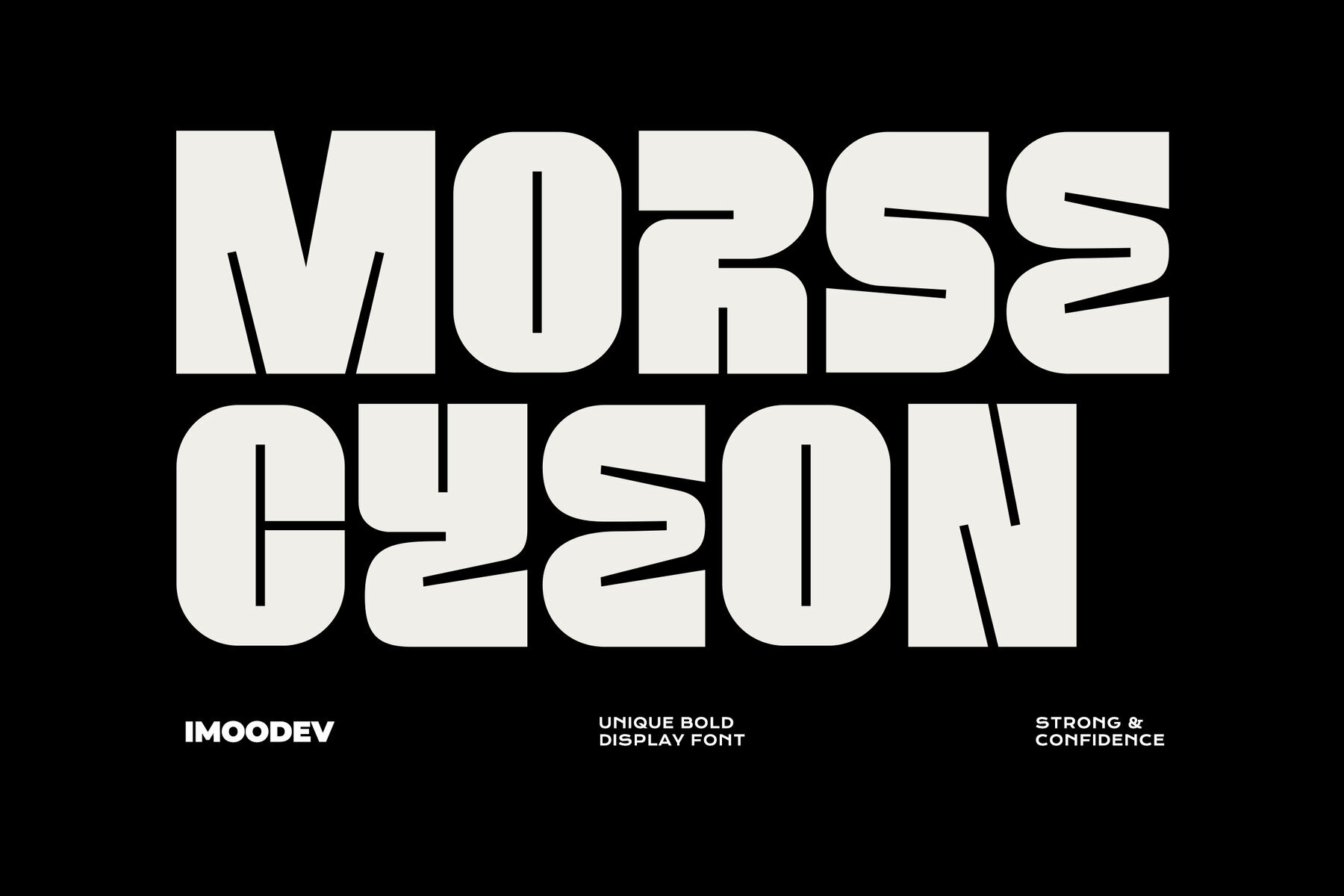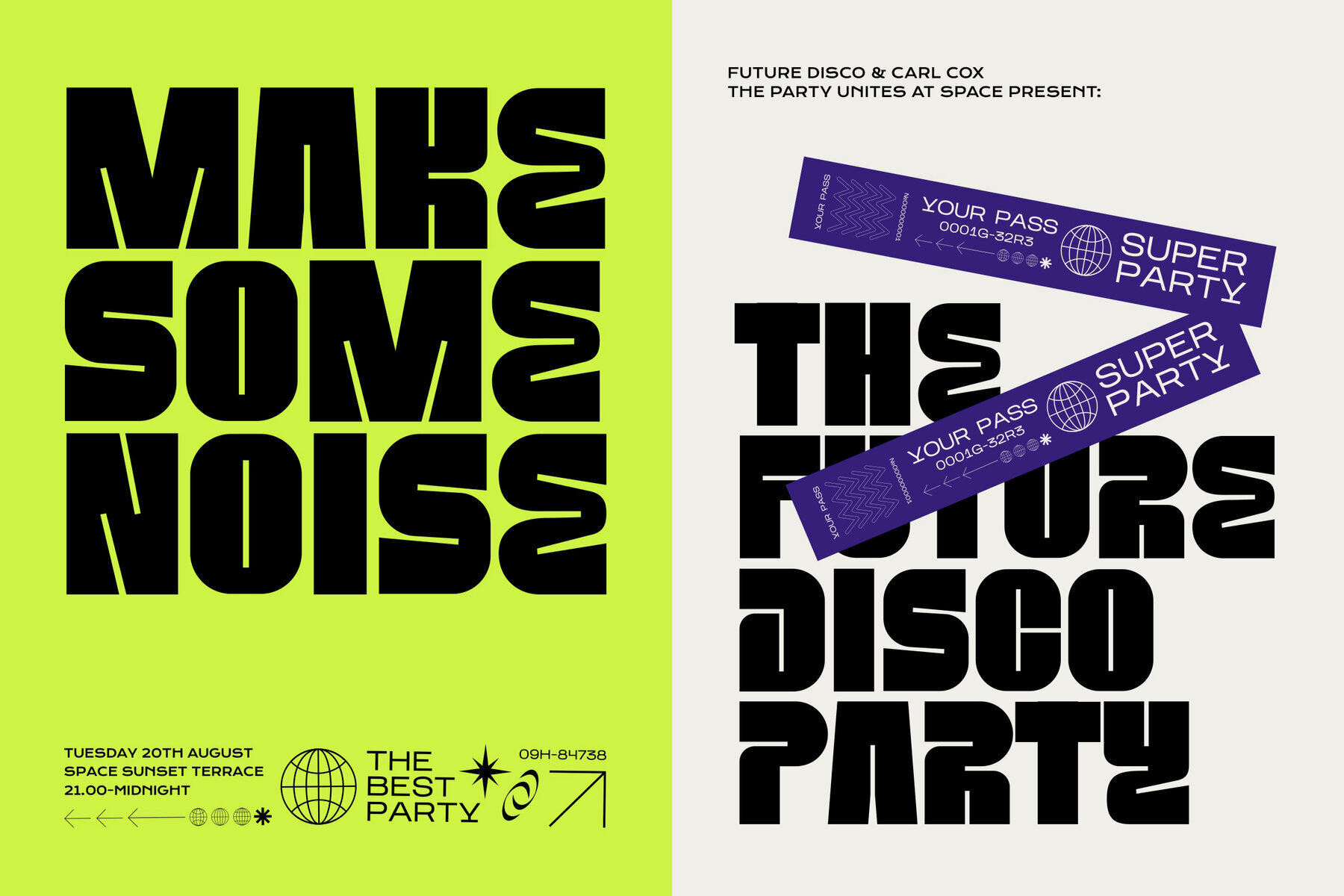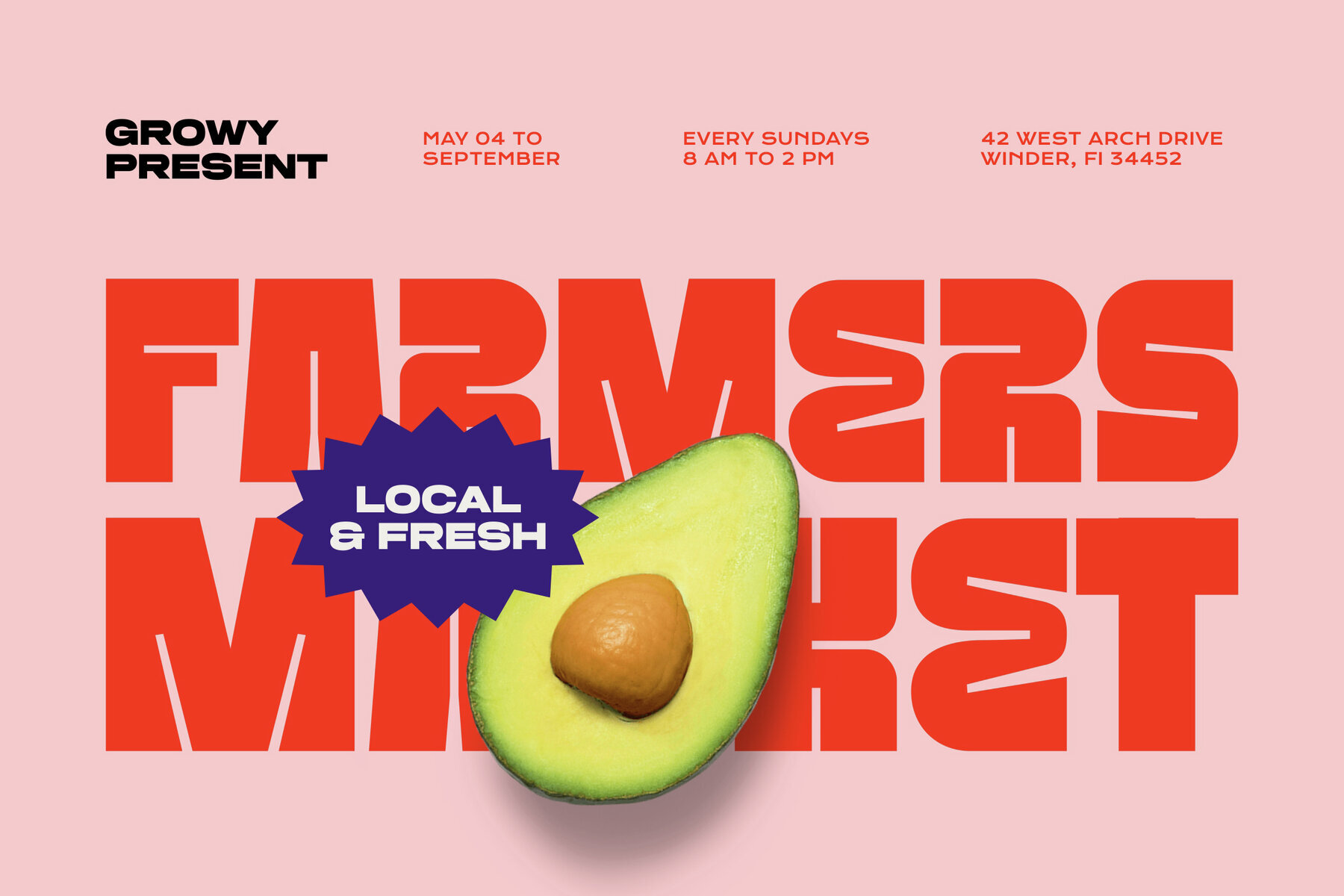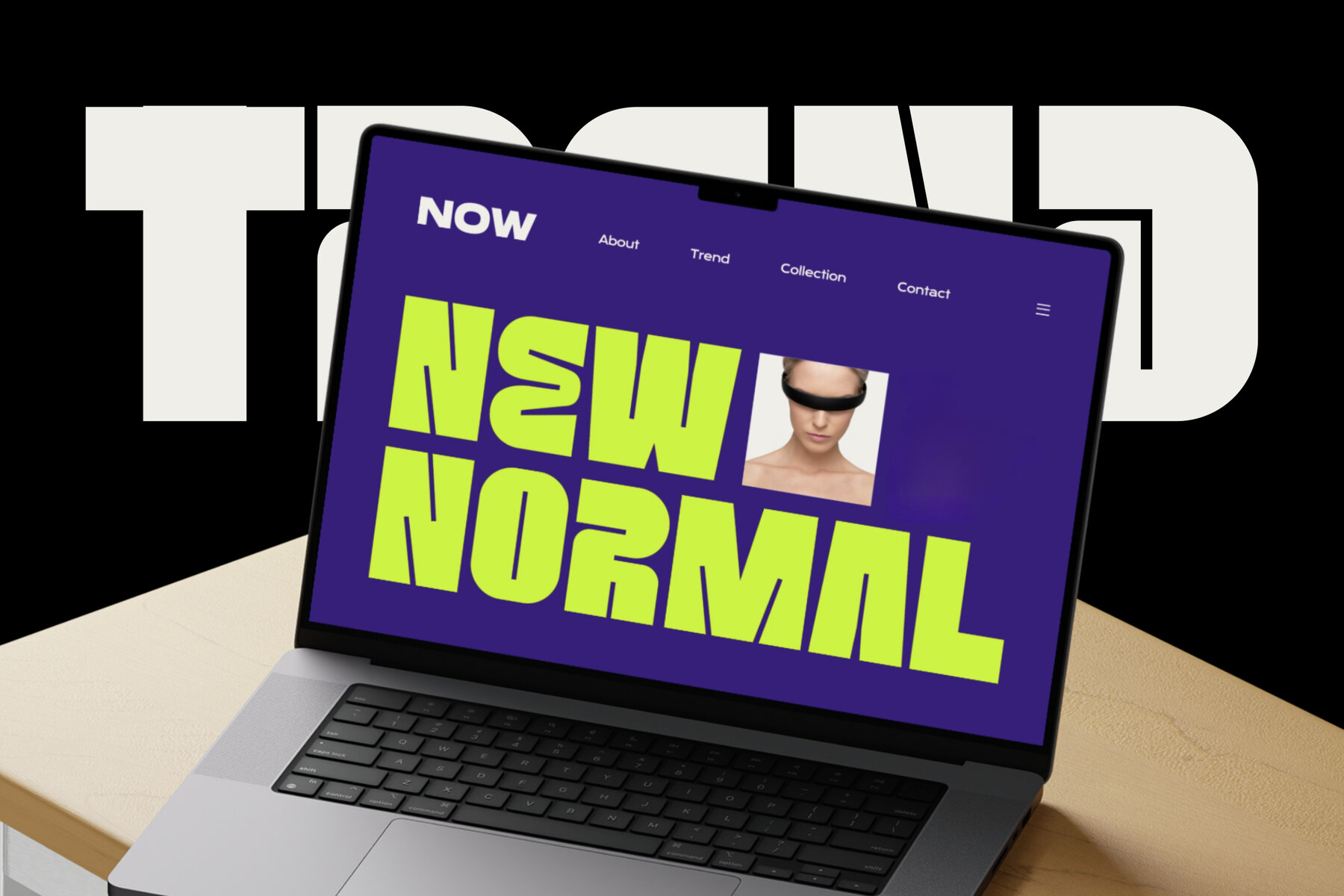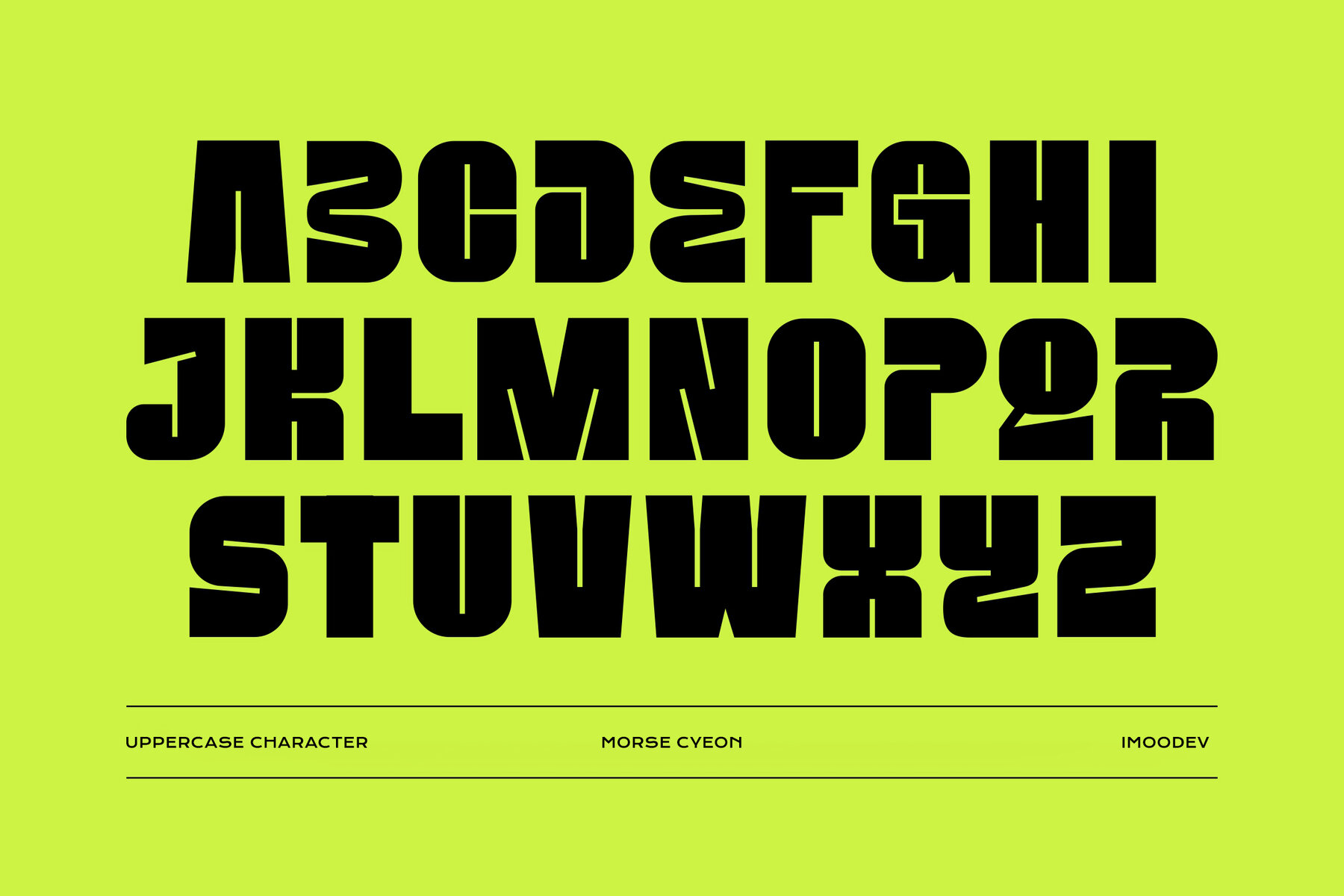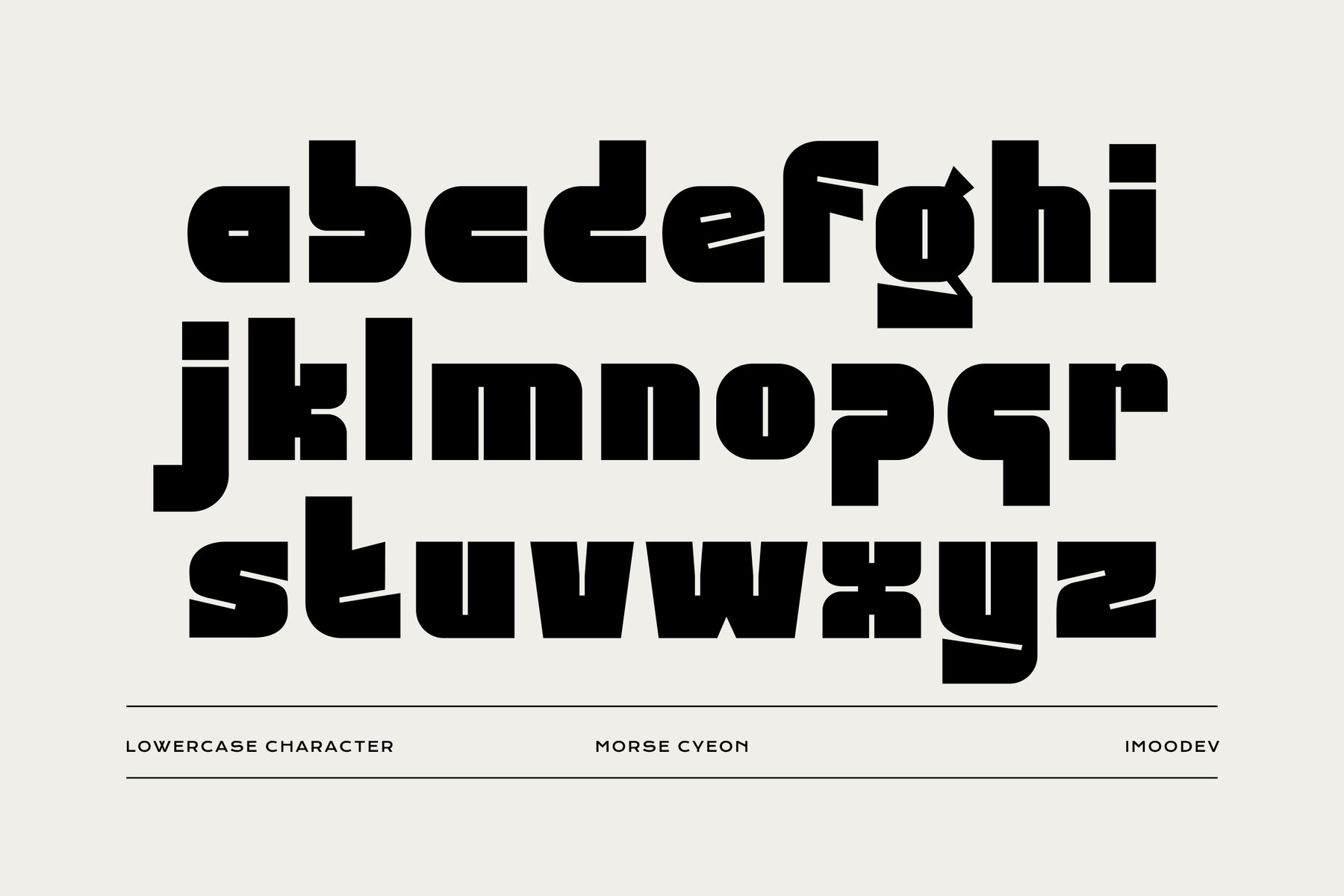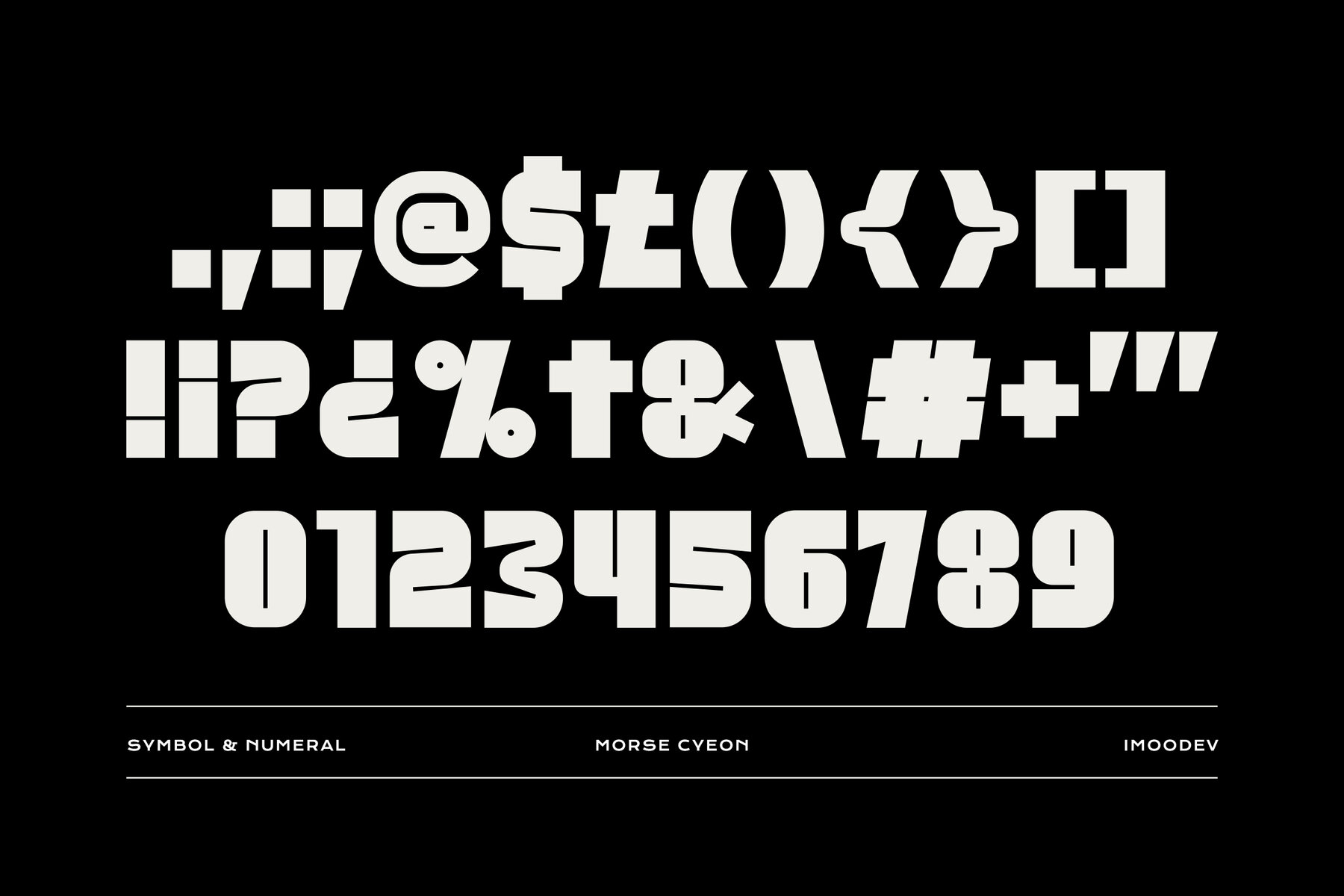
Morse Cyeon Font
Morse Cyeon Regular
Morse Cyeon is a bold display typeface crafted to make a striking visual statement. Featuring robust, weighty letterforms, it commands attention while channeling the retro-psychedelic essence of the 1970s. Its defining features include stencil-like cuts and strategically placed negative space glitches. This gives the font a futuristic, technology-inspired aesthetic, ideal for projects seeking an industrial edge. Morse Cyeon includes a full set of uppercase and lowercase characters, numerals, and symbols, ensuring a cohesive design.Morse Cyeon: Bold Display Typeface with Psychedelic Flair